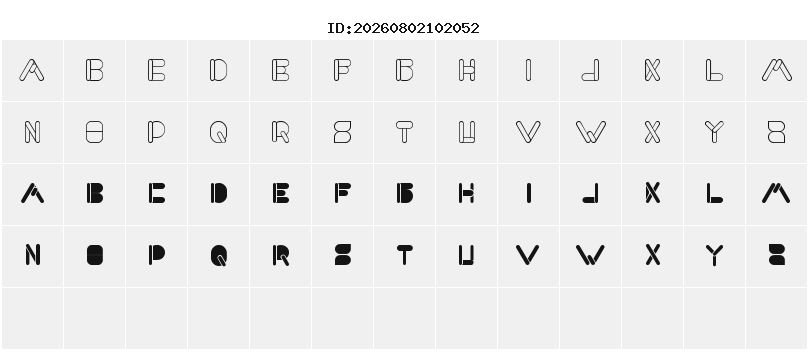
• Font Name: MAXIMUM KILOMETER
• Full Font Name: MAXIMUM KILOMETER
About MAXIMUM KILOMETER.ttf
MAXIMUM KILOMETER.ttf is a modern, elegant sans-serif font designed for ultimate readability and visual harmony. Perfect for branding, headlines, web design, and print materials.